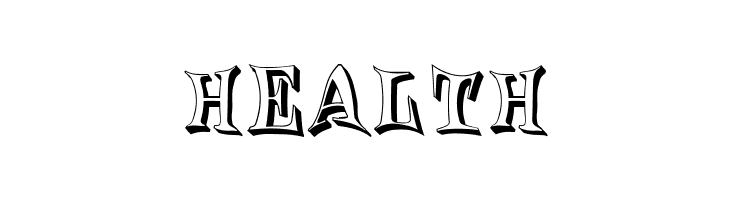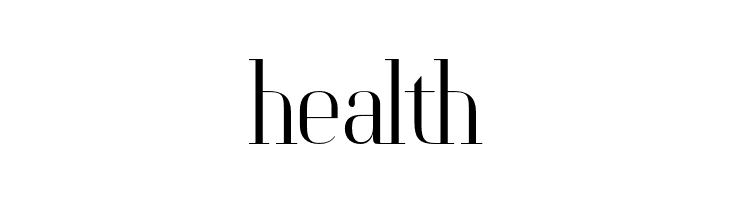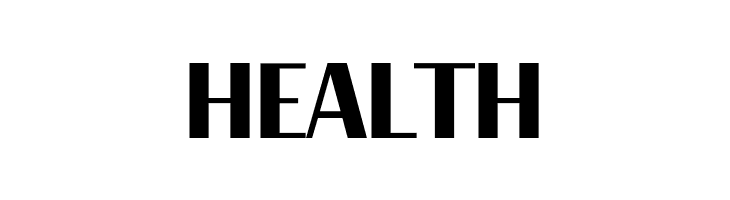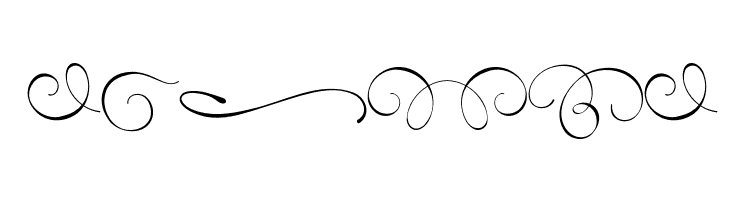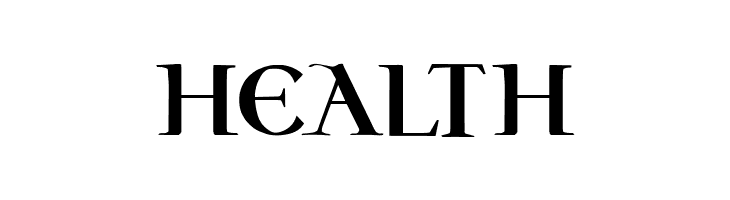
A bold, decorative font with blackletter influences and intricate design.
A modern, elegant font with thin, elongated letterforms and high contrast.
A bold, classic serif font with strong, elegant letterforms.
A bold, high-contrast font with a modern and elegant style.
Intricate and elegant swashes with flowing, ornate curves.
A classic serif font with elegant curves and medium contrast.
A casual, handwritten font with fluid, slightly irregular strokes.
A bold, rounded, and playful font with a retro vibe.
A playful, bold font with rounded edges and a bubbly appearance.
A modern serif font with sharp serifs and angular cuts, offering a blend of elegance and boldness.